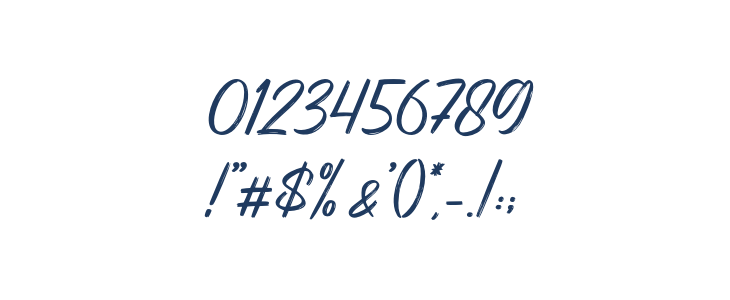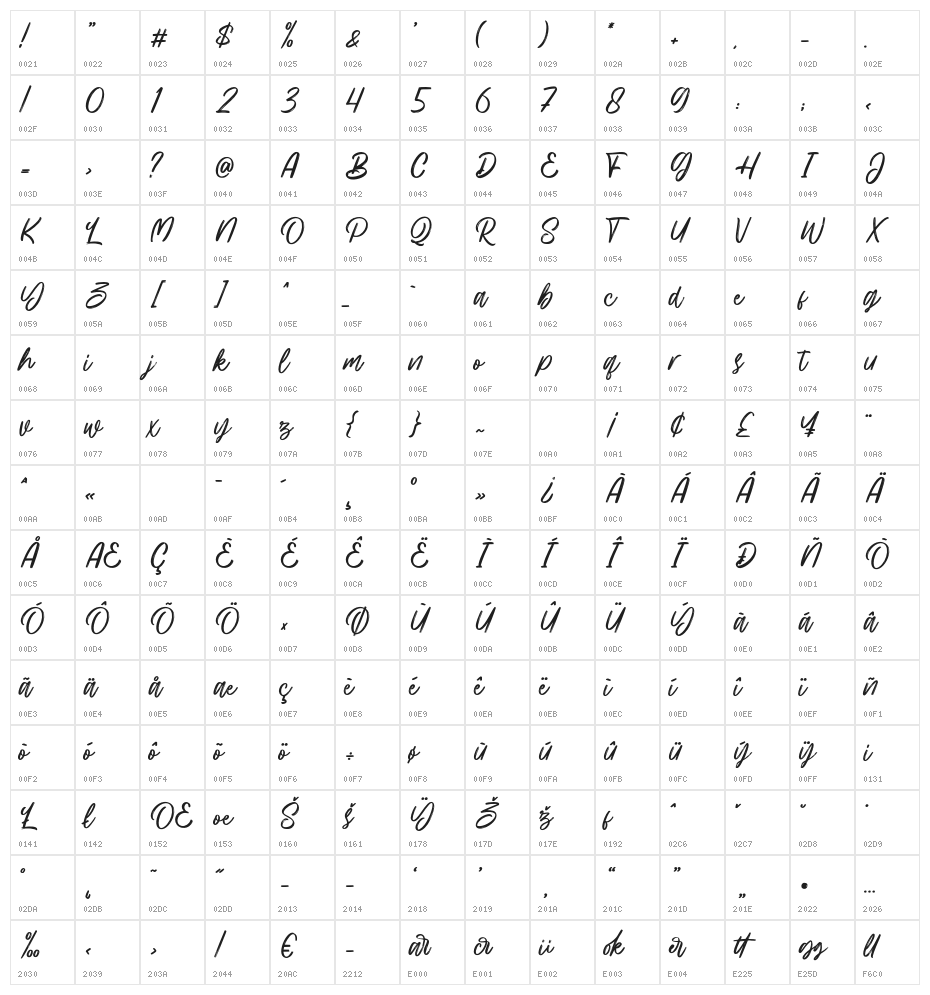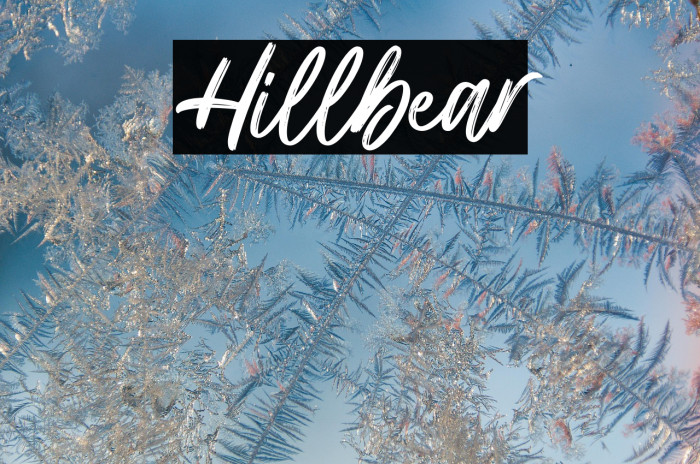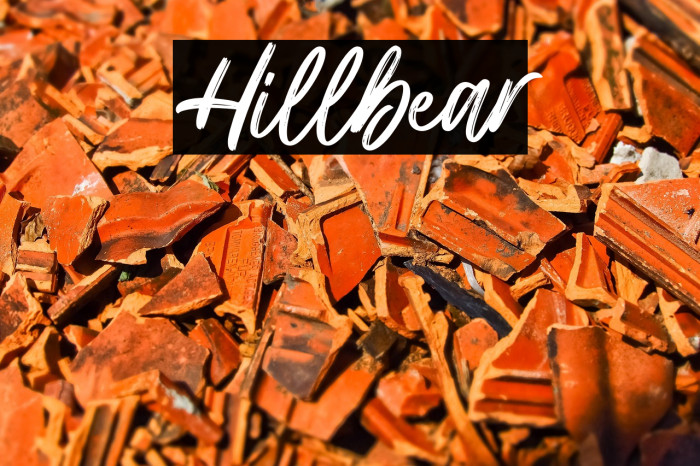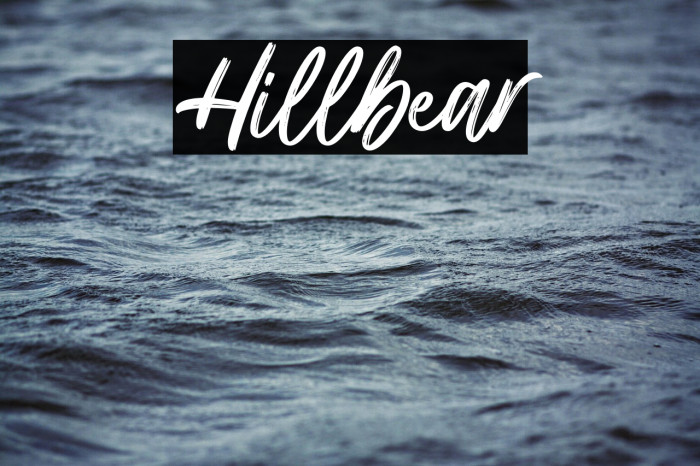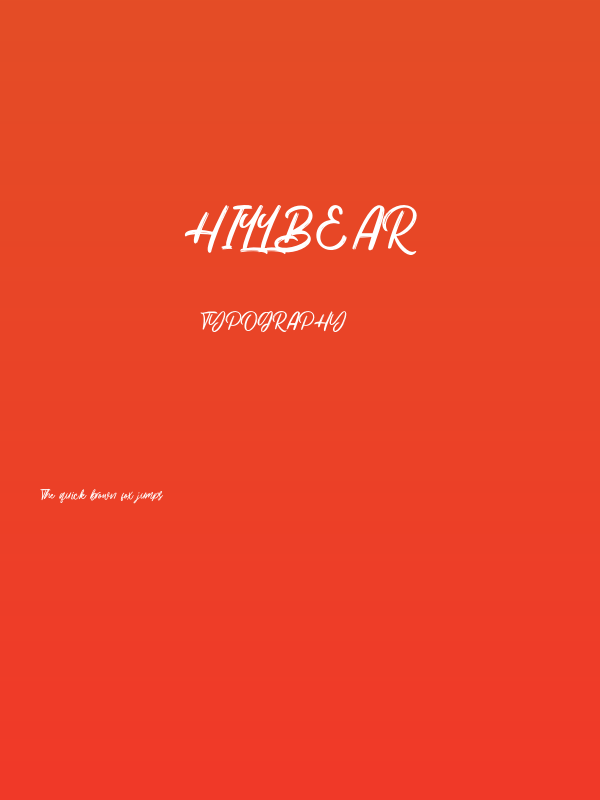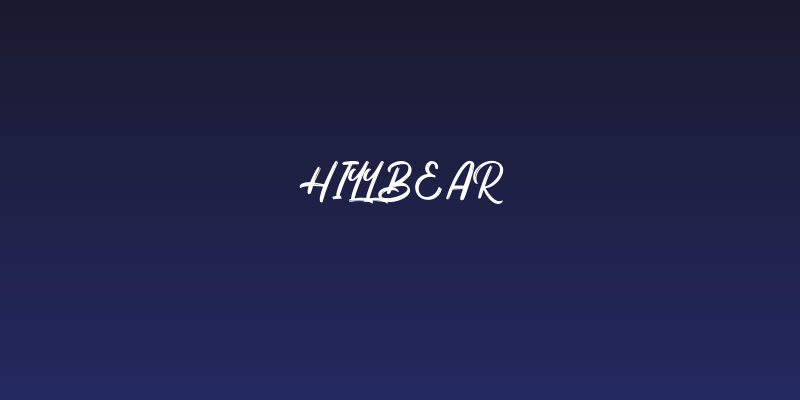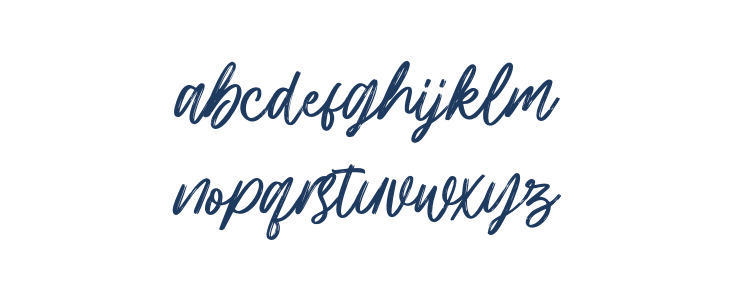
Hillbear Font
Hillbear Description
This font features a bold and expressive script style with a modern flair. The characters are connected, giving it a fluid and dynamic appearance. The strokes are thick and consistent, creating a strong visual impact. The uppercase letters are slightly more upright, while the lowercase letters have a more casual, handwritten feel. The numbers and special characters maintain the same boldness and style, ensuring a cohesive look across all elements. This font is perfect for projects that require a personal touch with a modern twist.
Use CaseLogos, Headlines, Invitations
Proposed ProjectsIdeal for branding, invitations, greeting cards, and social media graphics.